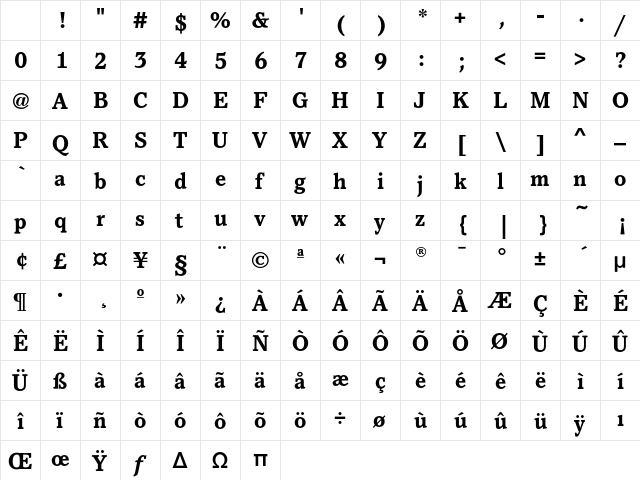
PacellaEF-Bold is a composed and adaptable typeface that performs quietly and consistently across a wide range of design contexts. Its bold stroke weight gives it real presence on the page.